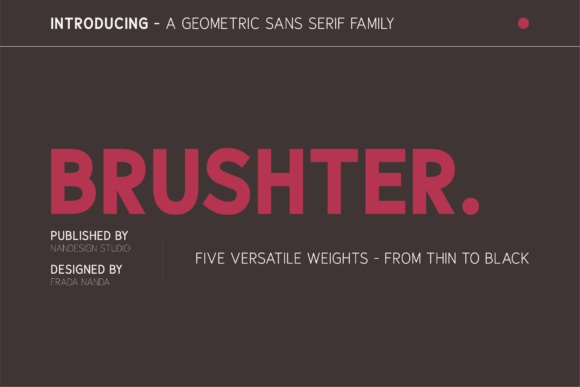
Introducing Brushter Font: The Ultimate Geometric Sans Serif for Modern Design
In the world of typography, a font can make all the difference in the way a message is conveyed. With the vast array of typefaces available, designers are constantly on the lookout for the perfect blend of style, clarity, and impact. This is where Brushter Font comes into playβa geometric all-caps sans serif font specifically designed to elevate modern visual language. Whether you’re working on a logo, website interface, or packaging label, Brushter offers the versatility and professionalism needed to make your work stand out.
What is Brushter Font?
Brushter is a thoughtfully crafted geometric all-caps sans serif font. Its design is centered around clarity and impact, making it an ideal choice for a wide range of design projects. The font’s geometric structure provides a clean and modern look, while its all-caps design ensures that your message is conveyed with authority and confidence.
Key Features of Brushter Font
- Geometric Design: Brushter’s geometric design offers a fresh and contemporary look, perfect for projects that demand a modern aesthetic.
- All-Caps Sans Serif: The all-caps sans serif design ensures clarity and readability across various platforms and devices.
- Five Carefully Crafted Weights: Brushter comes in five different weights, ranging from Thin to Black. This range allows designers to choose the perfect weight for their project, whether they aim for minimal elegance or bold expression.
- Versatility: Brushter’s versatility makes it suitable for a wide range of applications, including logos, website interfaces, packaging labels, and more.
Exploring the Five Weights of Brushter
One of the standout features of Brushter is its comprehensive range of weights. This allows designers to maintain a consistent visual language across their projects while adjusting the font weight to suit different needs.
- Thin: Ideal for designs that require a subtle, elegant touch. The Thin weight of Brushter offers a minimalist approach, perfect for luxury brands or sophisticated interfaces.
- Light: A step up from Thin, the Light weight provides a bit more presence while still maintaining a refined look.
- Regular: The Regular weight is the foundation of the Brushter family. It offers a balanced look that works well for body text and general design purposes.
- Bold: When you need to make a statement, the Bold weight of Brushter is up to the task. It adds a significant amount of presence to your design without sacrificing readability.
- Black: For maximum impact, the Black weight is the way to go. It’s perfect for headlines, titles, or any design element that needs to stand out dramatically.
Design Applications for Brushter Font
Brushter’s versatility in design applications is one of its most significant advantages. Here are some of the key areas where Brushter can make a substantial impact:
- Logo Design: A logo is often the first impression of a brand. Brushter’s range of weights allows designers to craft a logo that is both memorable and scalable.
- Website Interface: For websites, Brushter’s clarity and readability make it an excellent choice for both headings and body text, ensuring a seamless user experience.
- Packaging Labels: On packaging labels, Brushter’s geometric design and professional presence can help products stand out on crowded shelves.
- Marketing Materials: From brochures to billboards, Brushter can elevate marketing materials with its modern look and impactful presence.
Why Choose Brushter Font?
With so many fonts available, why should Brushter be your go-to choice? Here are a few compelling reasons:
- Clarity and Readability: Brushter’s design prioritizes clarity and readability, ensuring that your message is conveyed effectively.
- Professional Presence: The font’s geometric design and range of weights give it a professional edge that’s hard to match.
- Versatility: Whether you’re working on digital or print projects, Brushter’s versatility ensures it can adapt to any design need.
- Modern Aesthetic: For projects that demand a modern aesthetic, Brushter’s geometric sans serif design is second to none.
Brushter Font is a powerful tool for designers looking to elevate their work with a modern, geometric all-caps sans serif font. Its range of weights, from Thin to Black, offers unparalleled versatility, making it suitable for a wide array of design applications. With Brushter, you can ensure that your projects have a refined, professional presence that stands out in today’s competitive visual landscape. Whether you’re designing a logo, crafting a website interface, or creating packaging labels, Brushter is the perfect choice for those who value clarity, impact, and modern visual language.